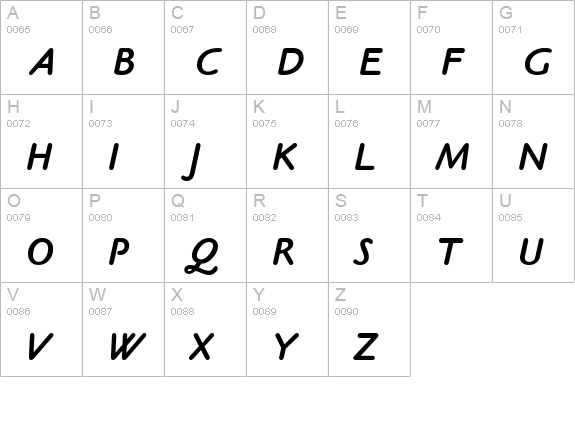
ClaudeSansBoldItalicPlain Font Details
Introducing ClaudeSansBoldItalicPlain font, a captivating typeface that exudes elegance and modernity. Its bold and italicized design adds a touch of sophistication to any text, making it perfect for headings, titles, and other design elements that require a strong visual impact. This versatile font is ideal for a wide range of projects, from branding and marketing materials to editorial design and web content. Its clean lines and sleek curves make it easy to read while still commanding attention. And the best part? ClaudeSansBoldItalicPlain font is available for free download at FontsMarket.com. Yes, you read that right - this stunning font can be yours at no cost, allowing you to elevate your design projects without breaking the bank. Don't miss out on this opportunity to enhance your creative endeavors with ClaudeSansBoldItalicPlain font. Download it today and start creating stunning visuals that will leave a lasting impression.